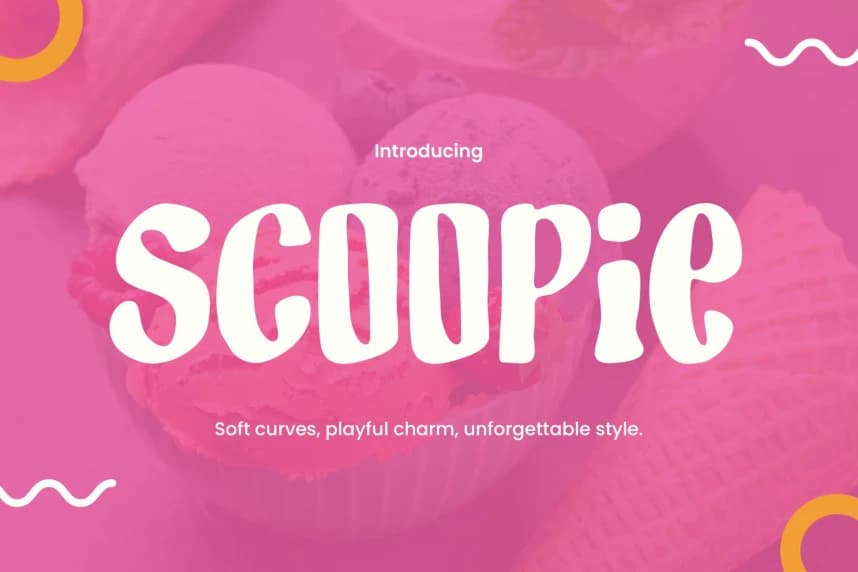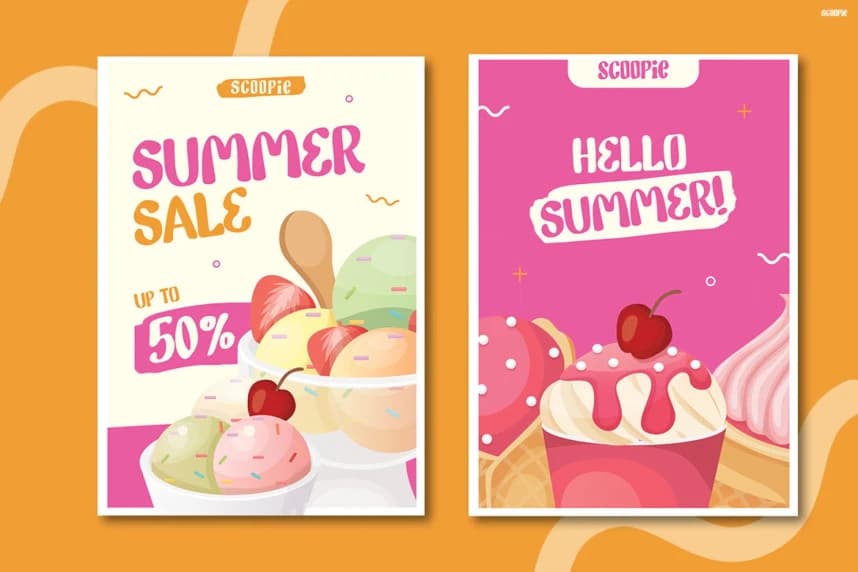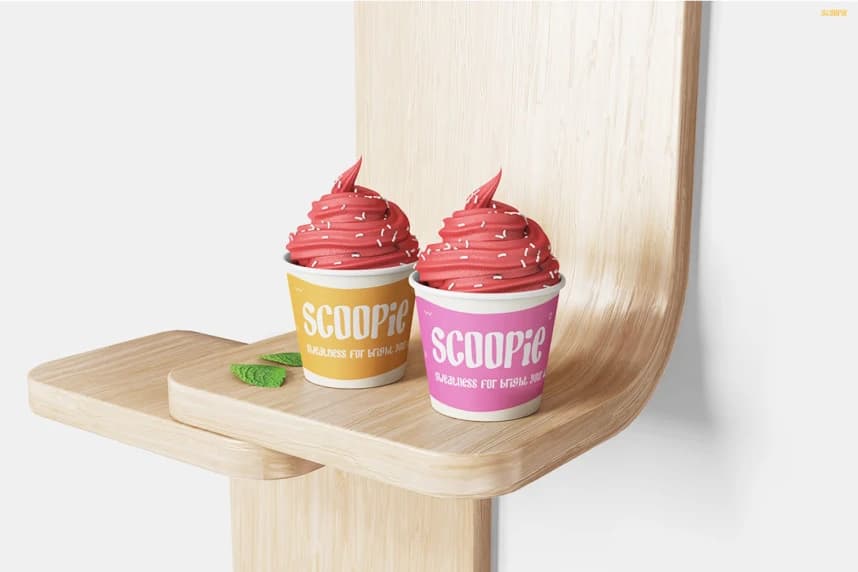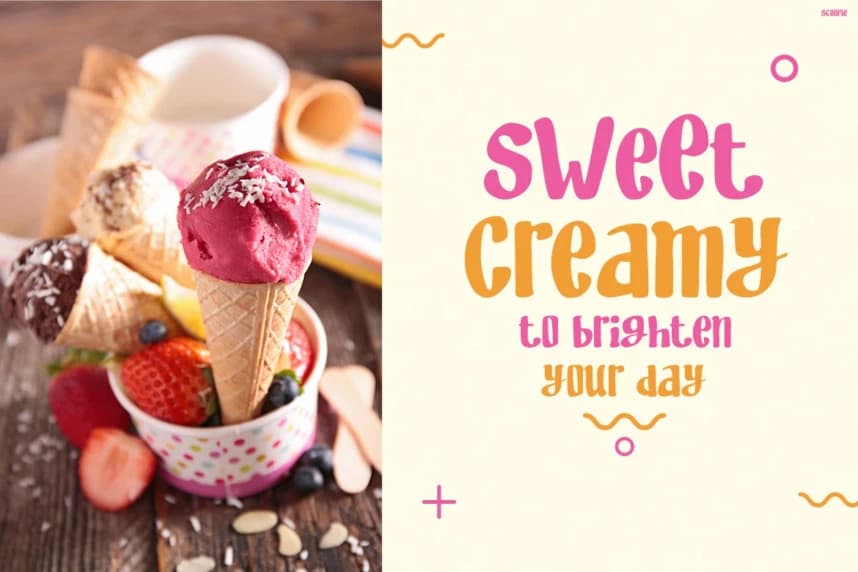
Scoopie Display Font brings a delightful burst of sweetness and charm inspired by colorful ice cream visuals. Moreover, its rounded and bubbly letterforms create a soft and friendly look. The playful curves and bold shapes make every word feel lively and expressive.